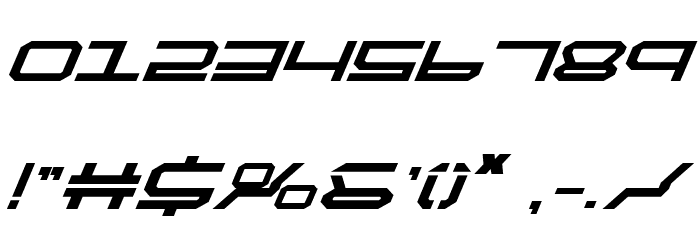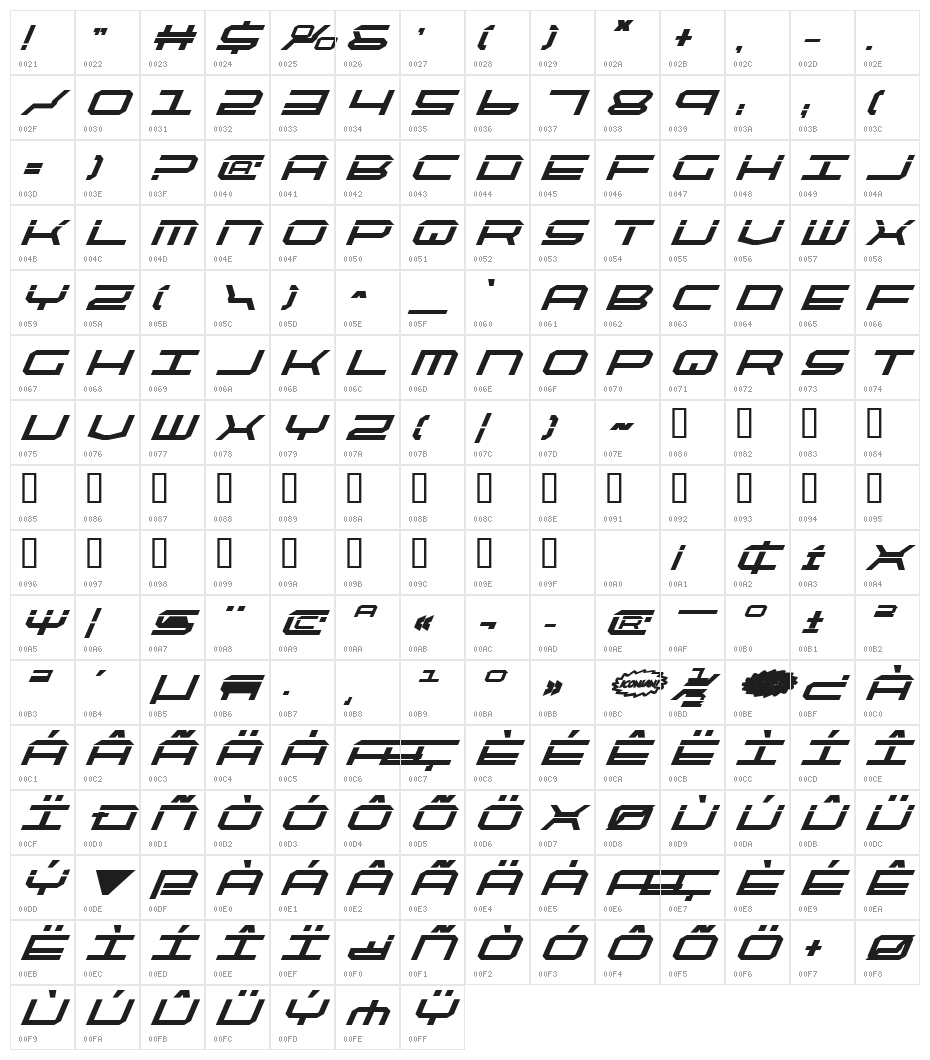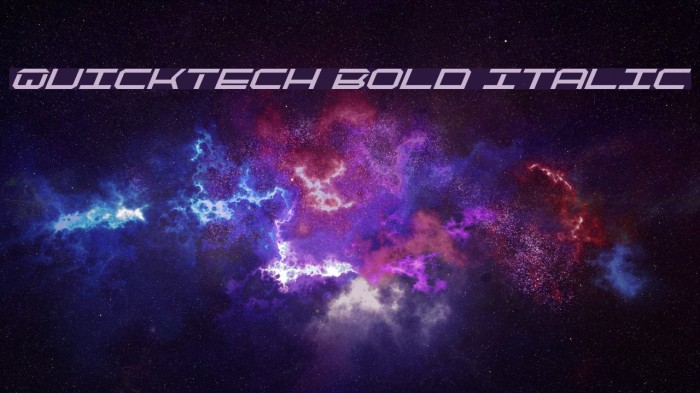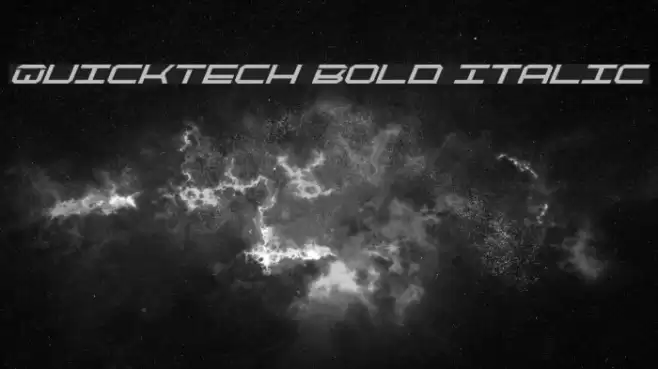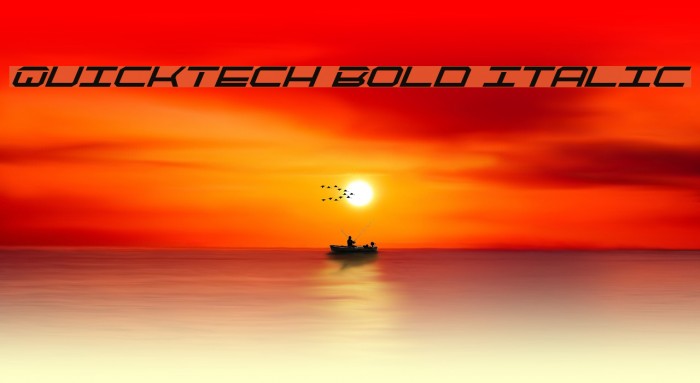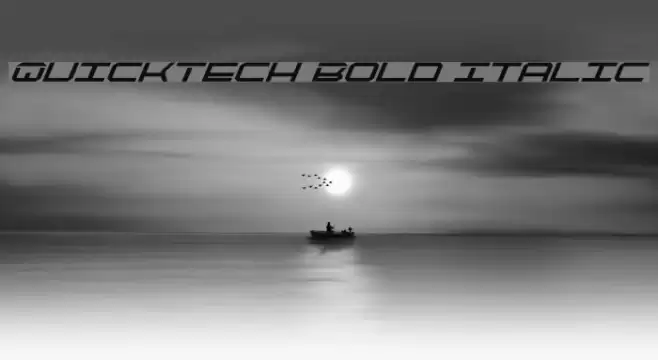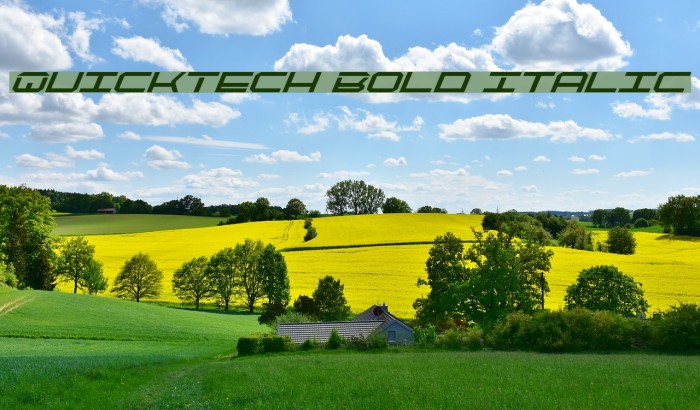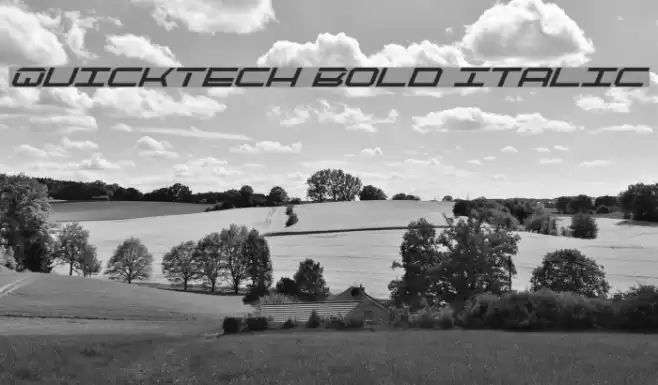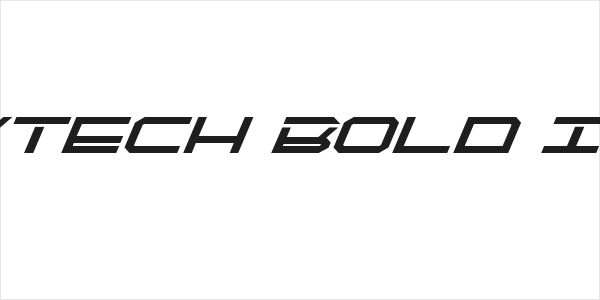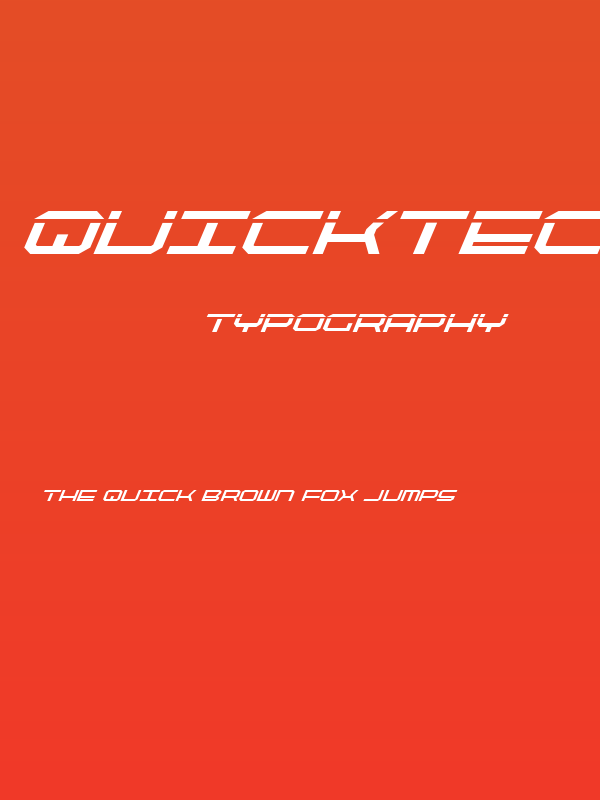
QuickTech Bold Italic Font
QuickTech Bold Italic Description
This font exhibits a futuristic and dynamic style, characterized by its angular and geometric letterforms. The design features sharp edges and a slanted orientation, giving it a sense of motion and speed. The uppercase and lowercase letters maintain a consistent style, with the uppercase being more prominent. The numerals and special characters follow the same angular theme, ensuring uniformity across all glyphs. This font is bold and italic, enhancing its modern and tech-inspired appearance. The overall design is sleek and suitable for projects that require a contemporary and energetic look.
| Proposed Projects | Ideal for technology branding, video game titles, sci-fi movie posters, and modern digital interfaces. |